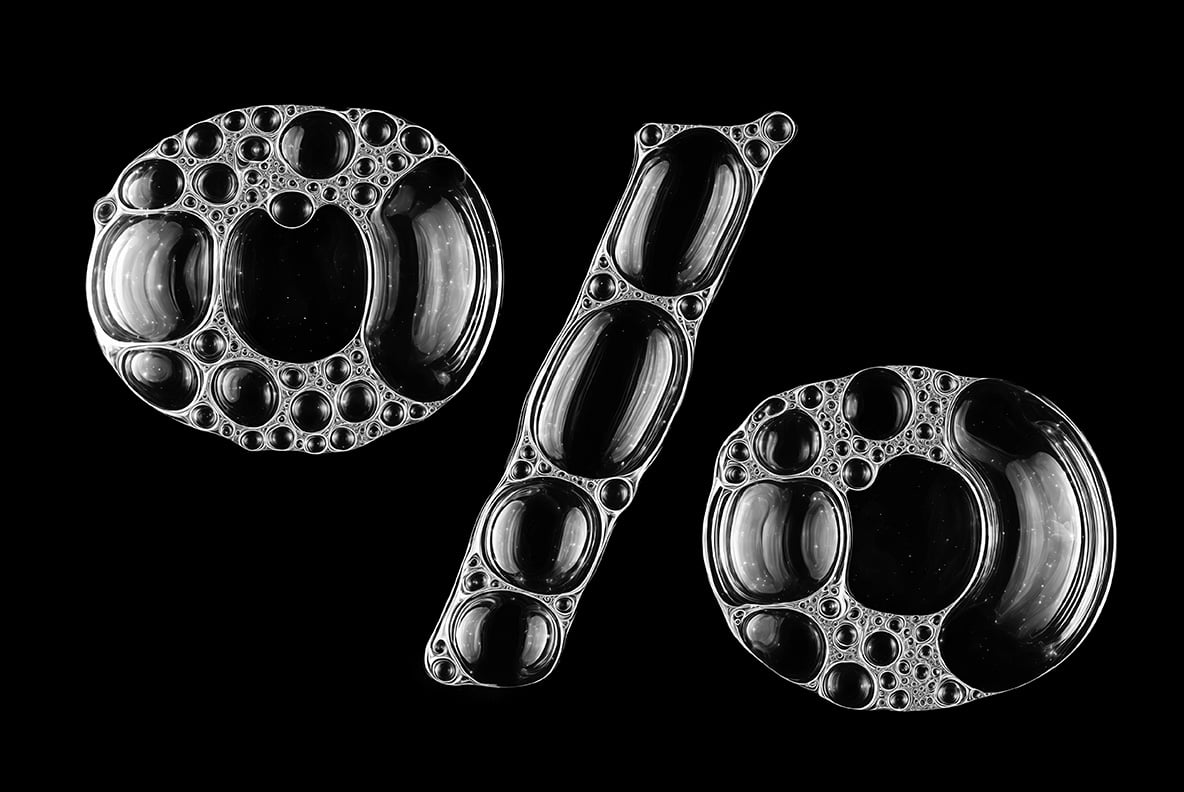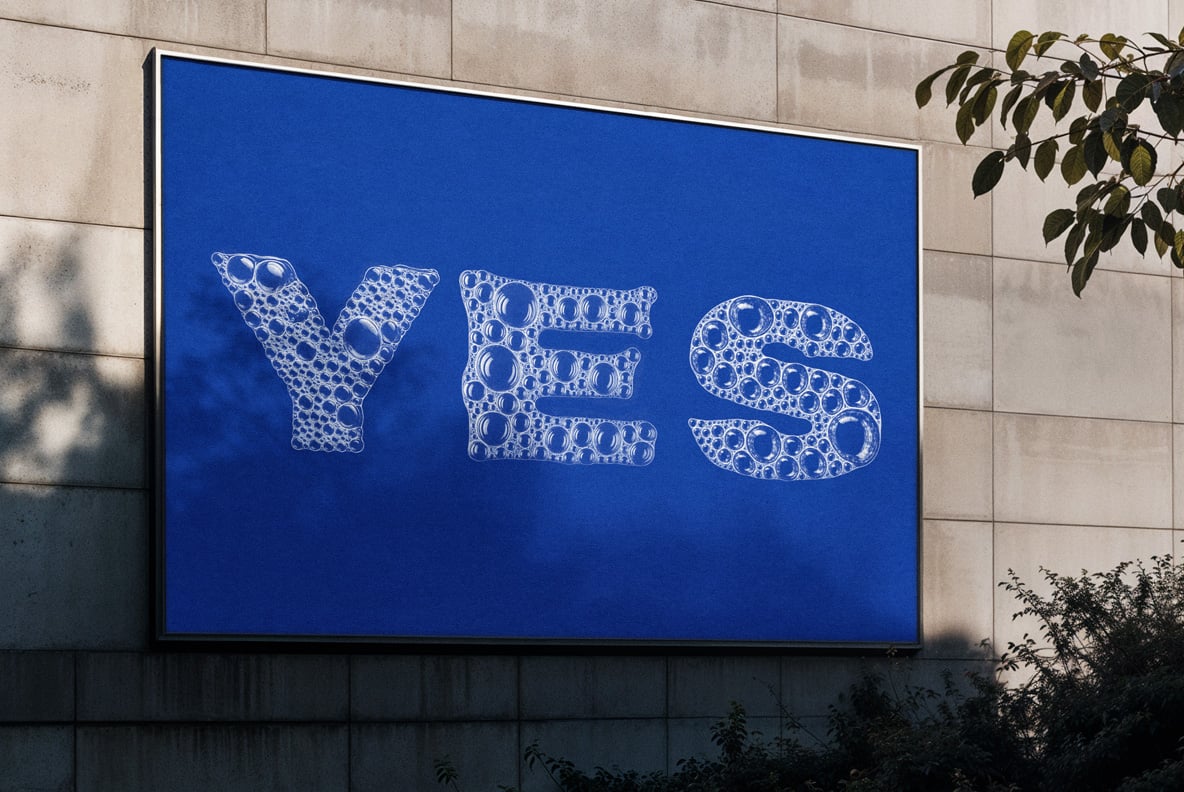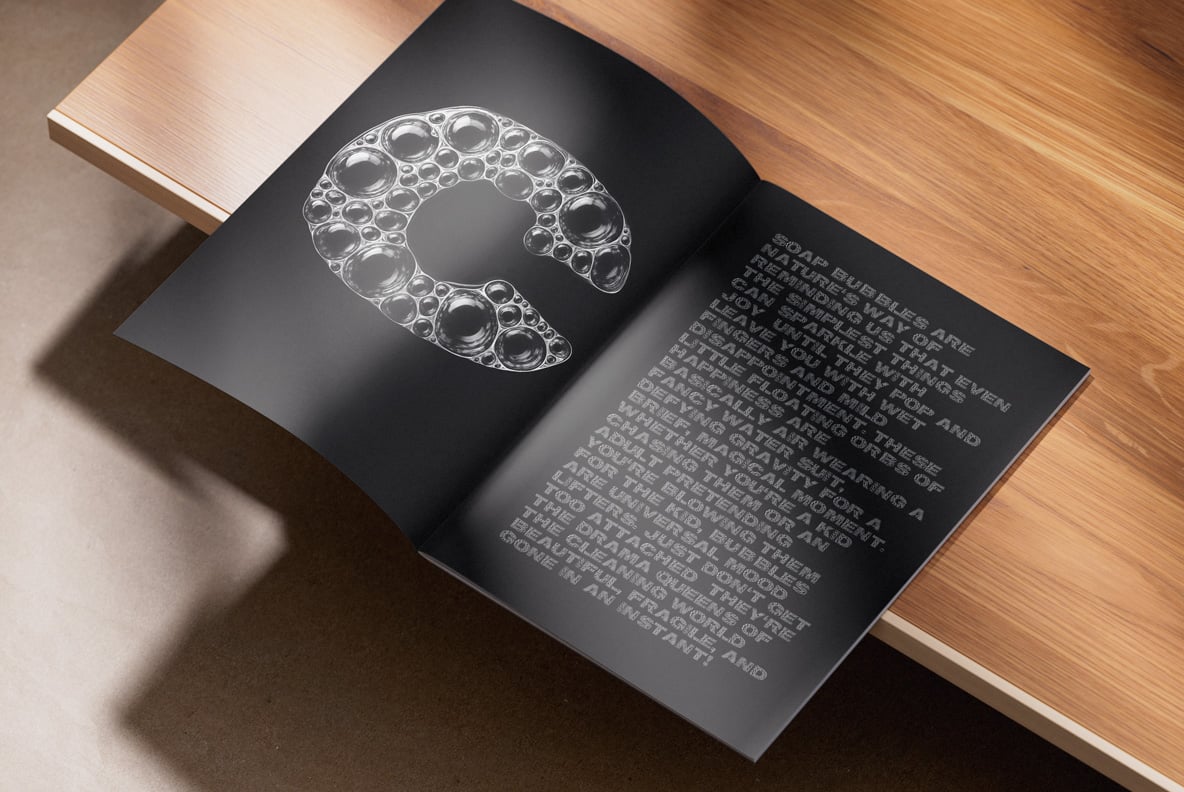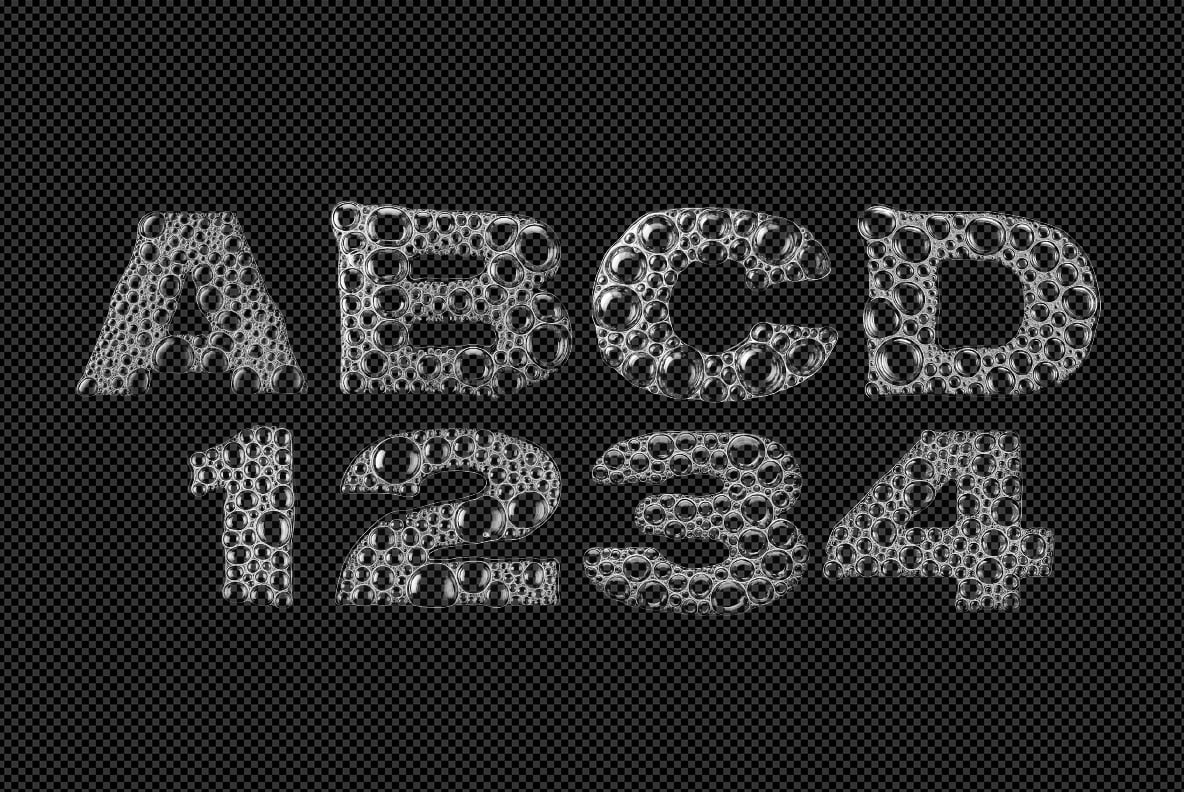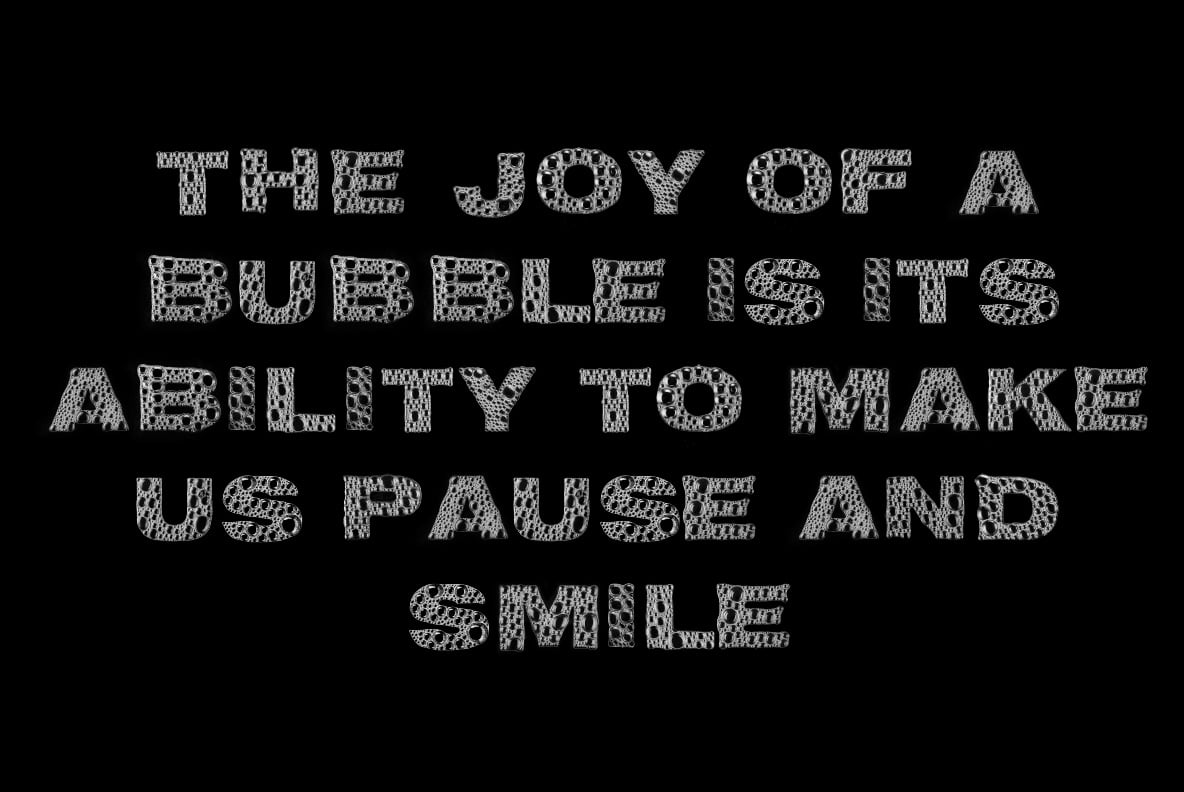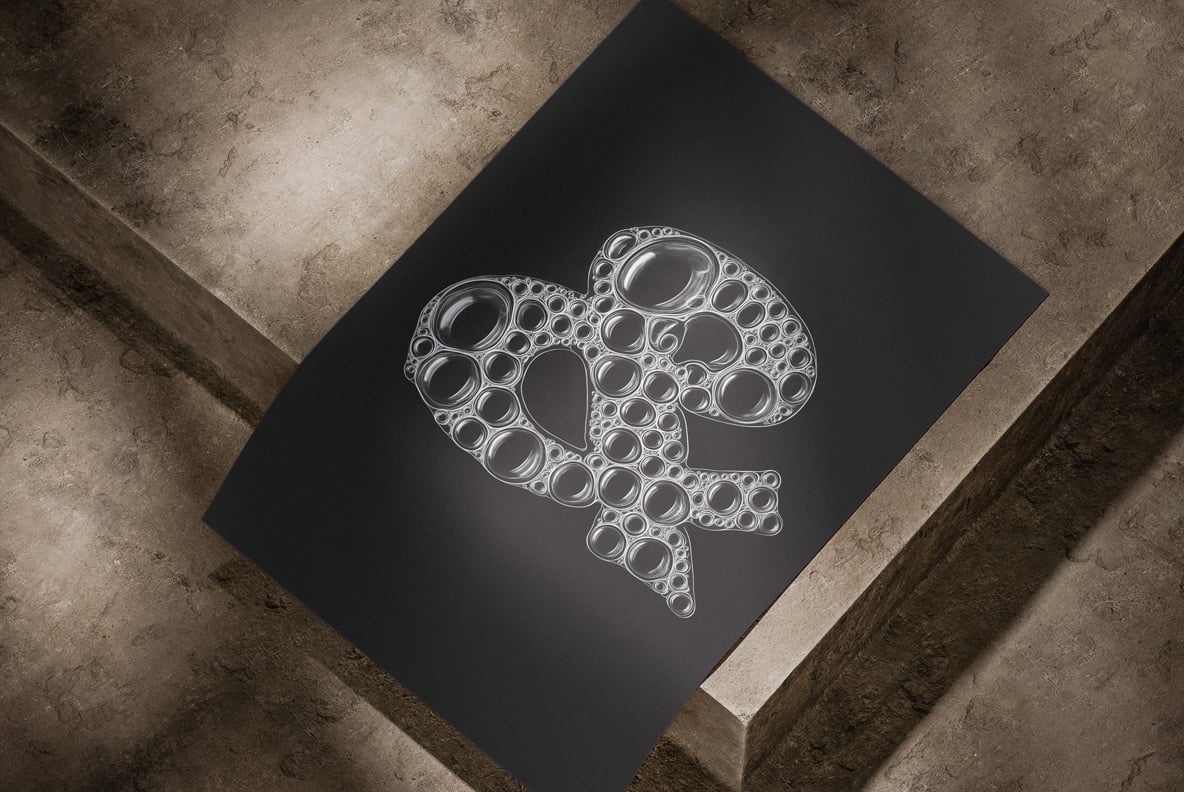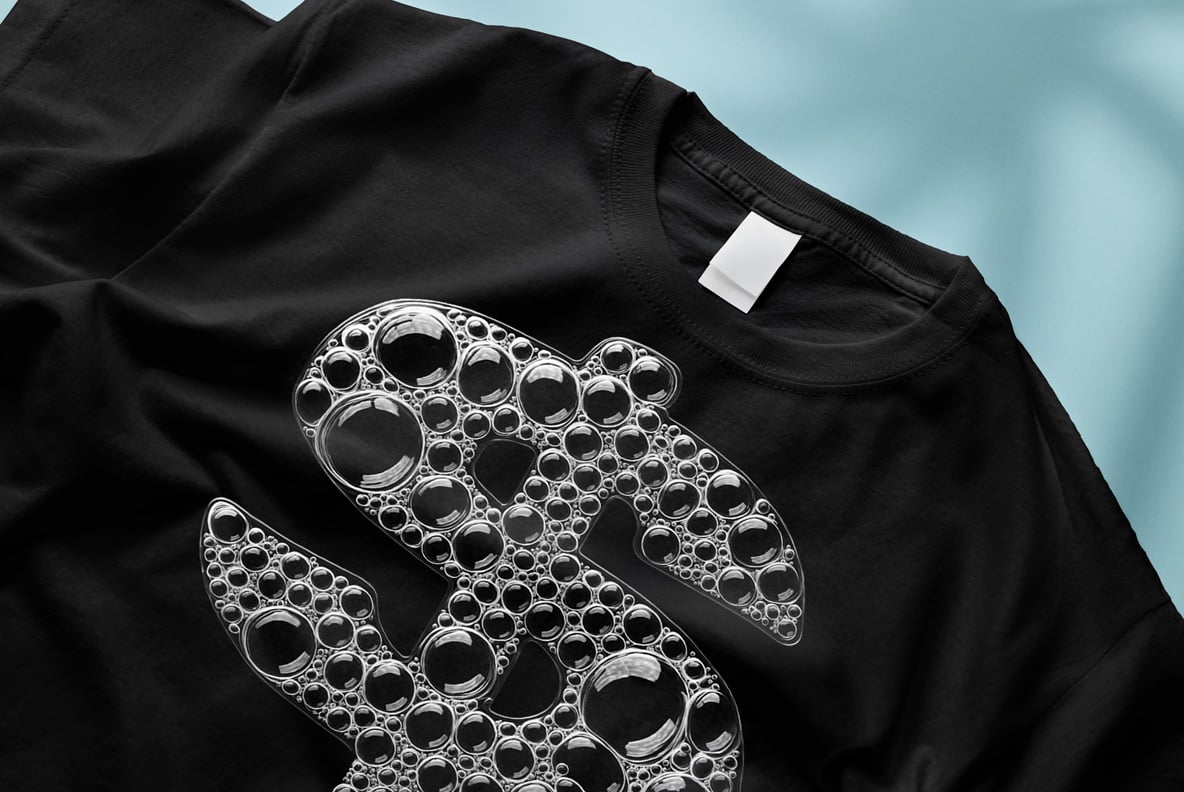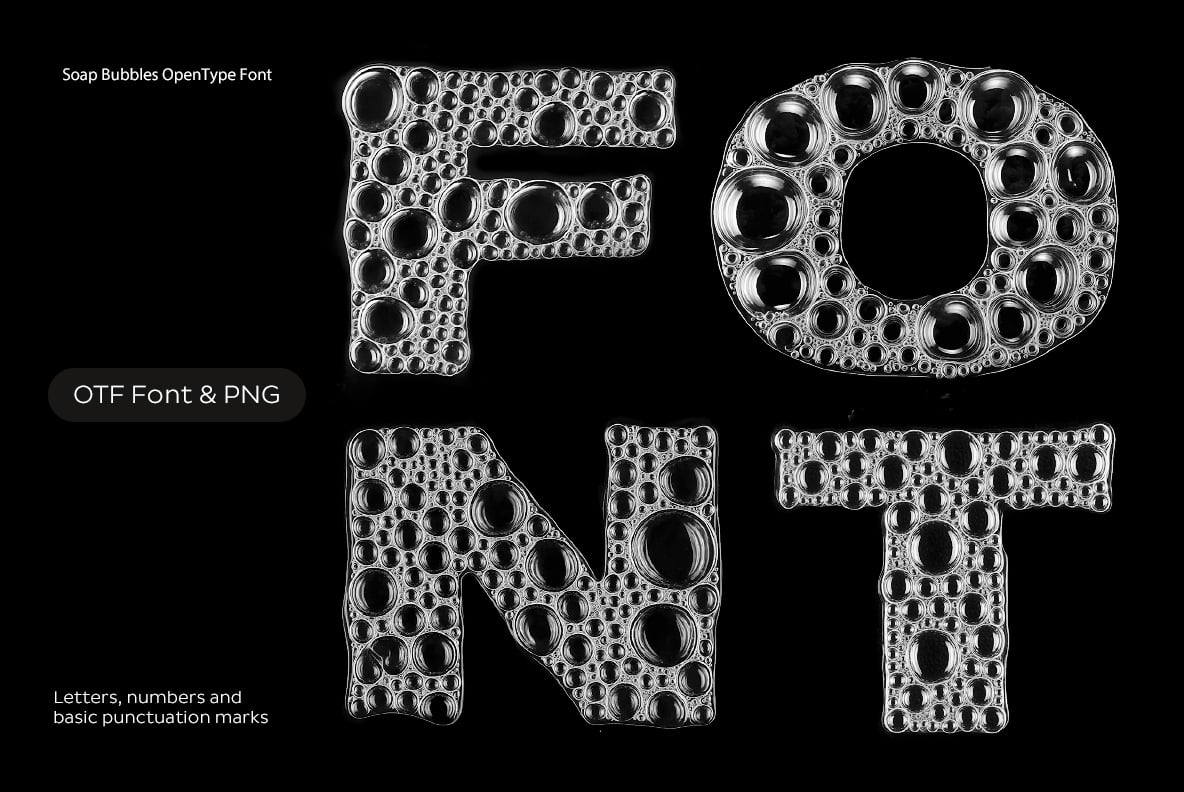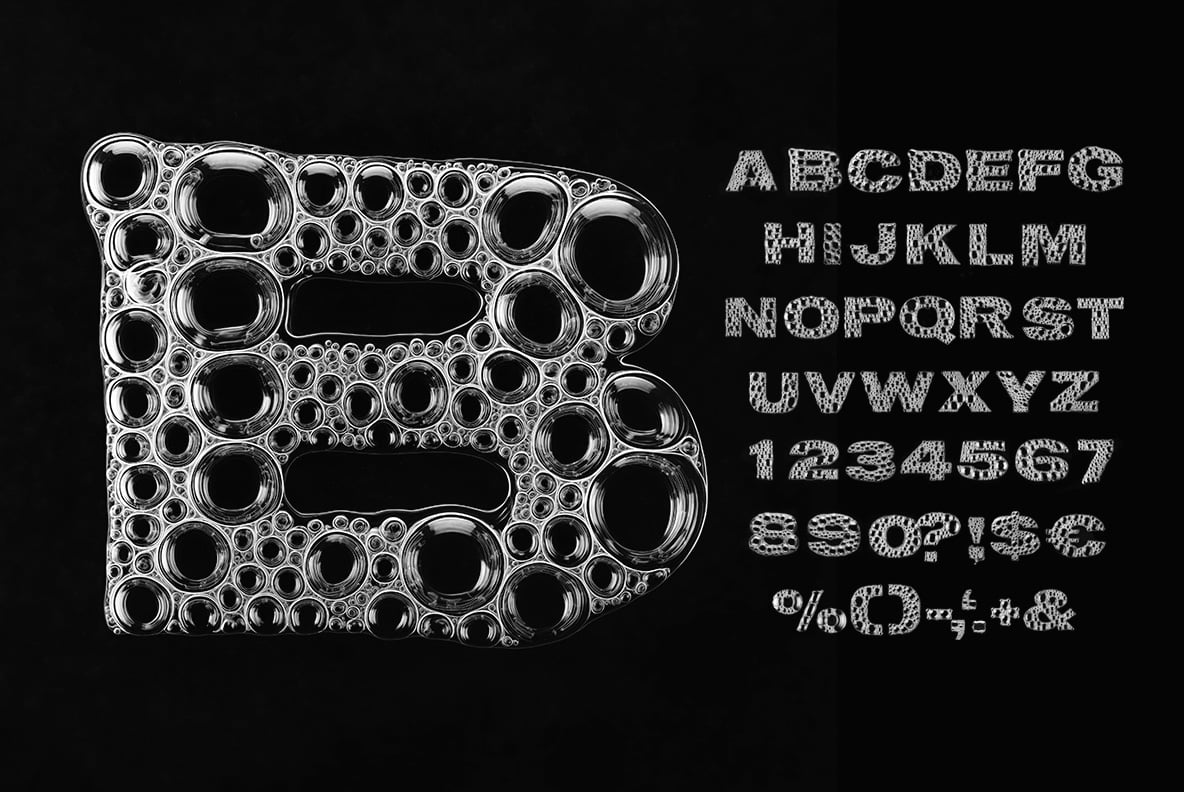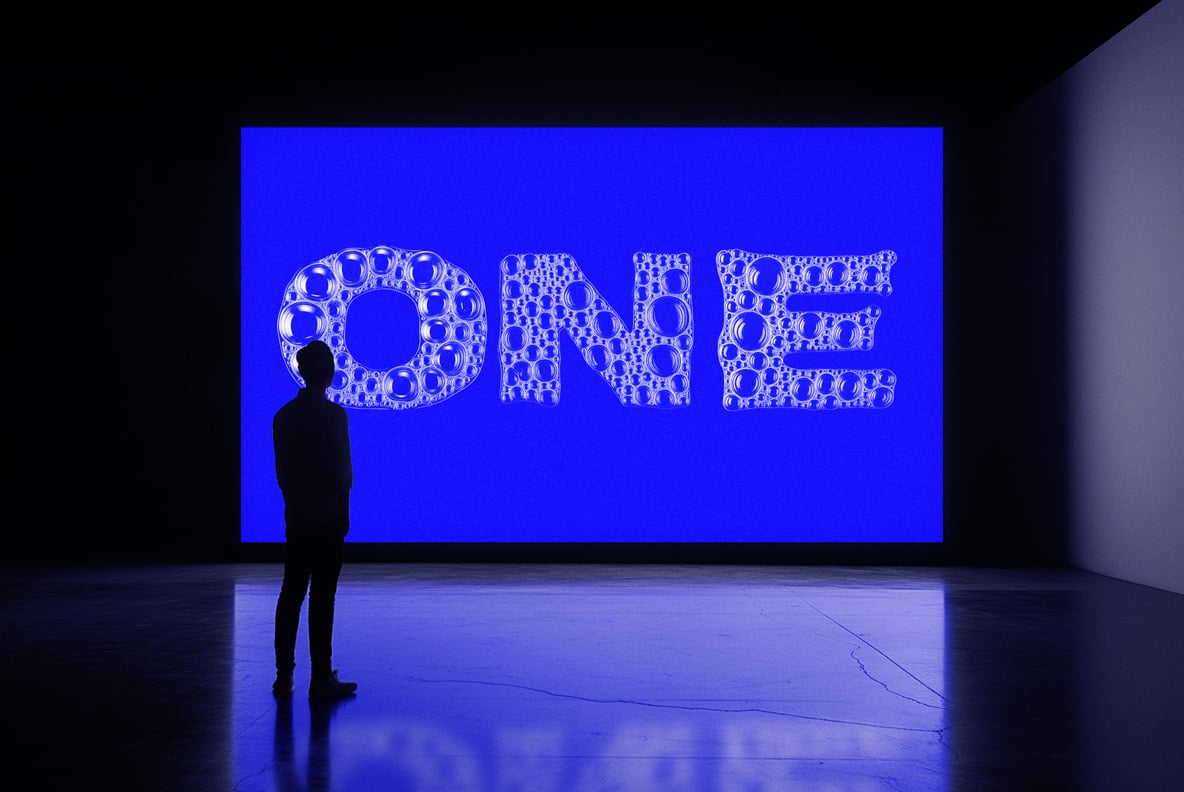
Soap Bubbles Font
Fun and playful, the Soap Bubbles Font brings a whimsical touch to your designs with its letters made entirely of delicate, floating soap bubbles. Perfect for creating eye-catching headlines, logos, and creative projects, this bubbly font captures the lightness and charm of real bubbles. Whether you’re crafting colorful posters, quirky social media posts, or unique typography art, this bubble alphabet adds a fresh, airy vibe to any text. Its intricate details and lifelike texture make it ideal for designs that need a splash of fun and creativity. From soap font-inspired branding to bubble-themed visuals, this font is a delightful choice for anyone looking to add a lighthearted and imaginative element to their work.
Soap Bubbles Font. A high definition OpenType Font. Contains uppercase characters, numerals and basic punctuation. (Draw height roughly 800 pixels). All letters and glyphs that comprises this font you can see on the preview.
Others : ! ? - . ' $ € % & #